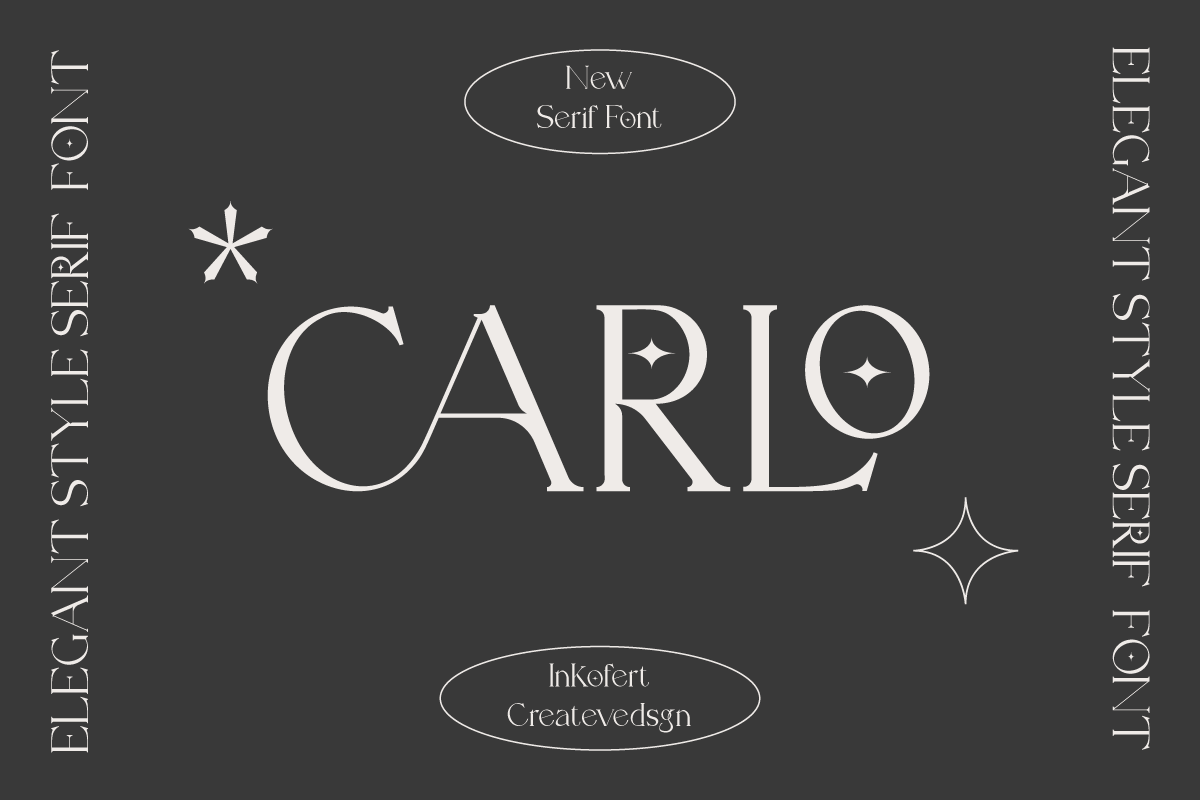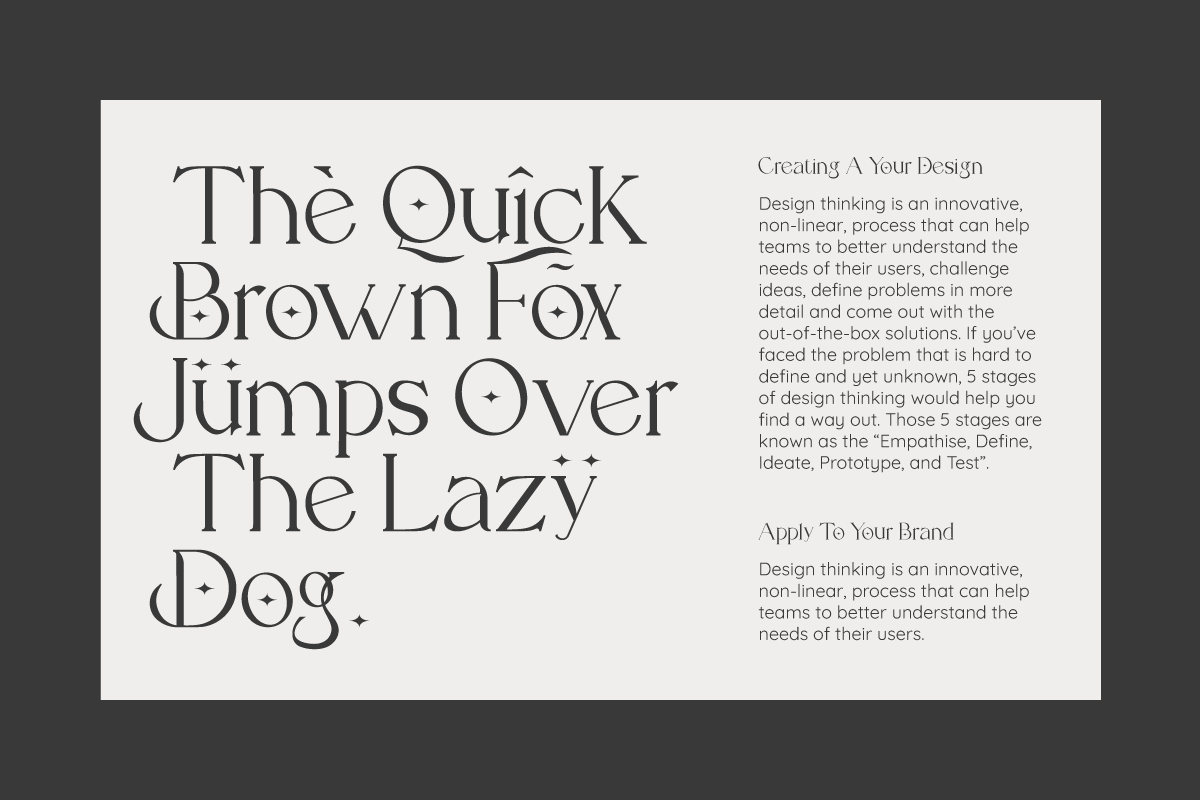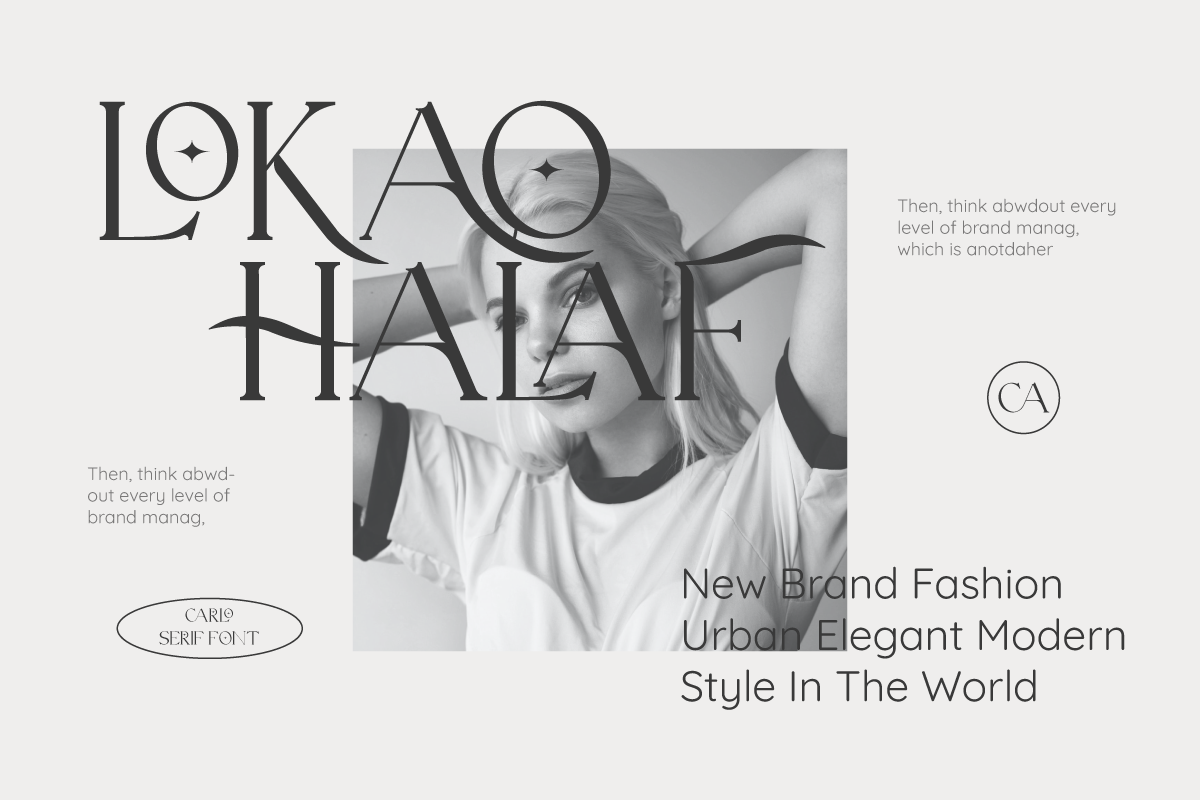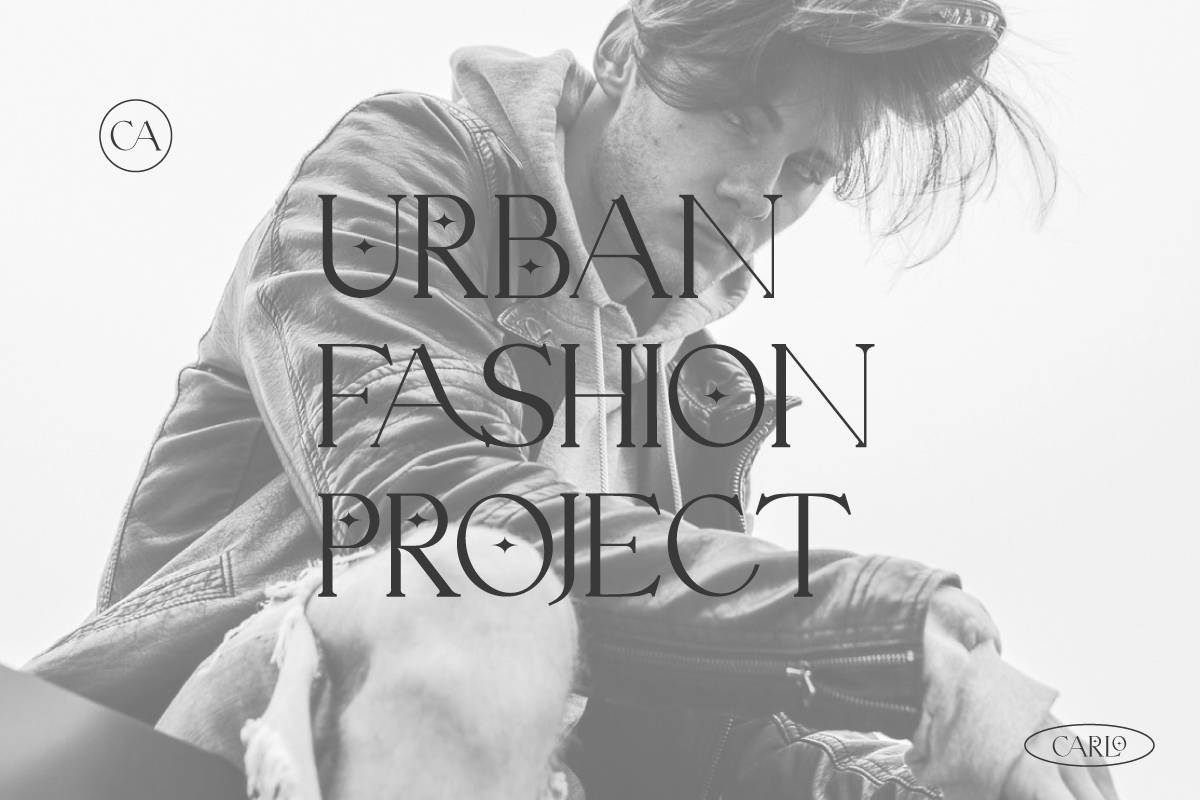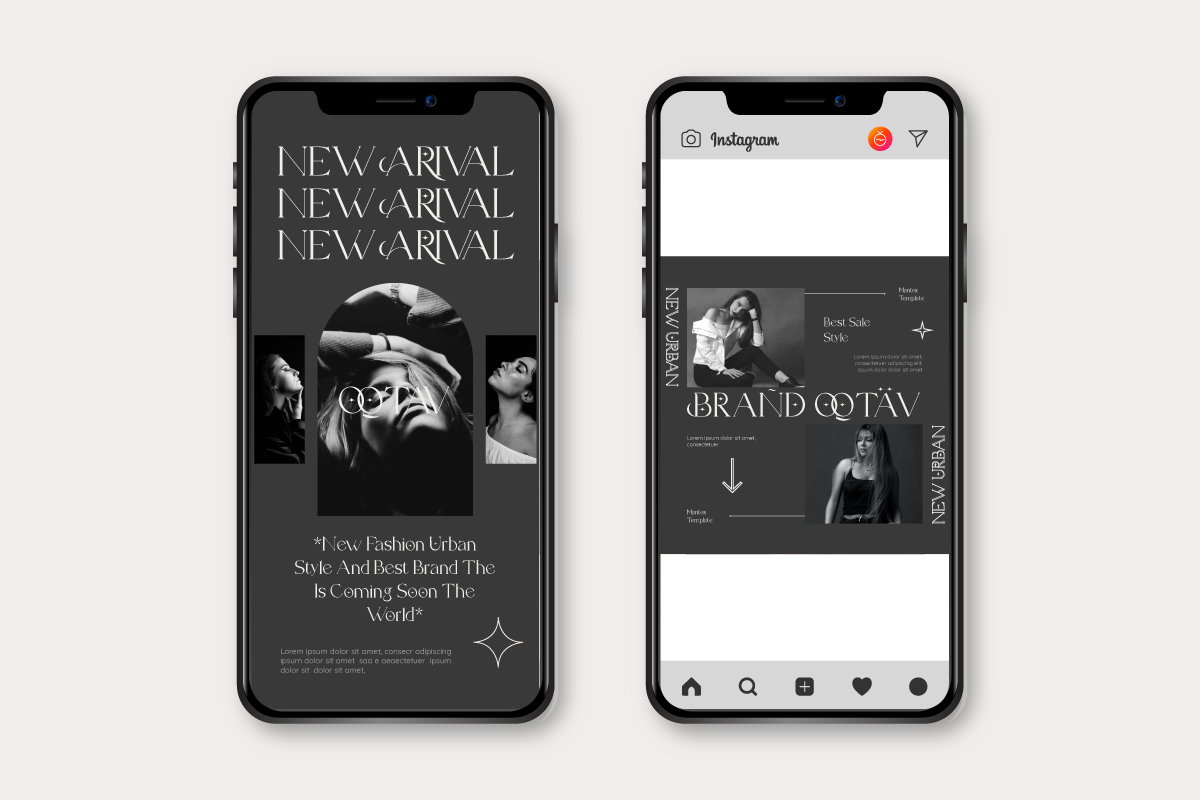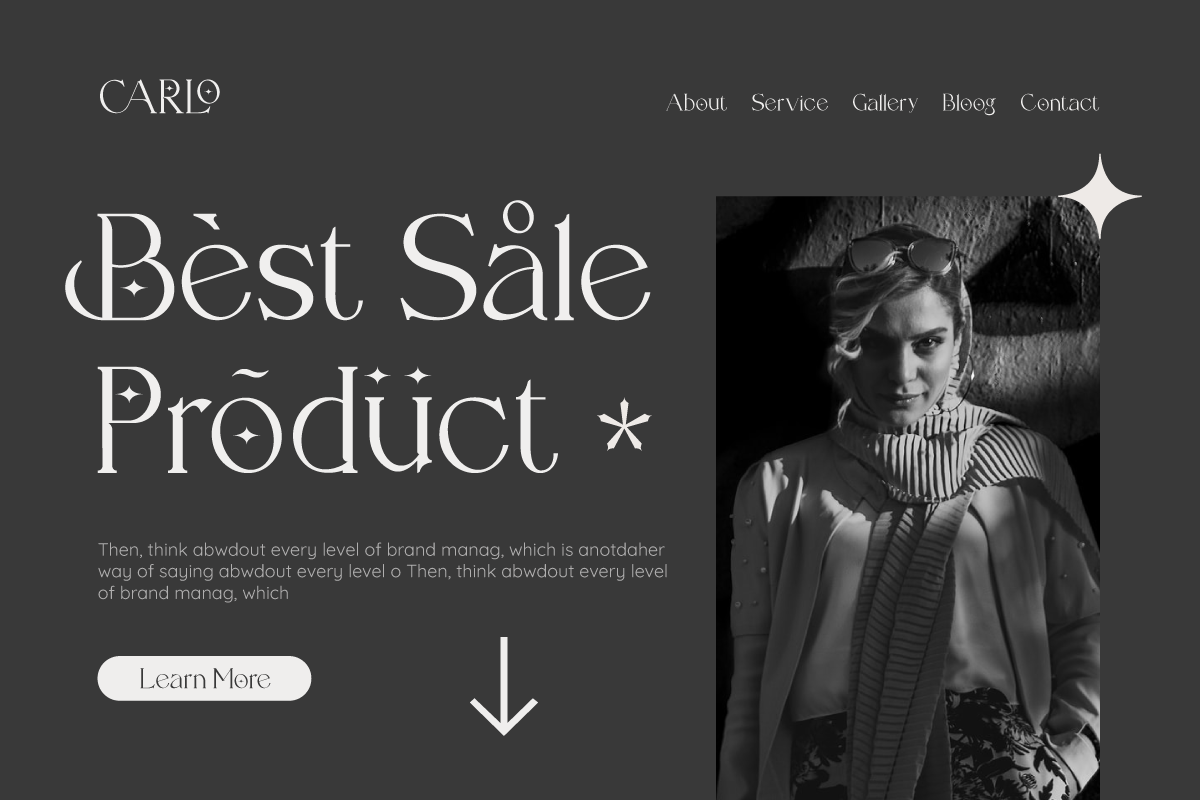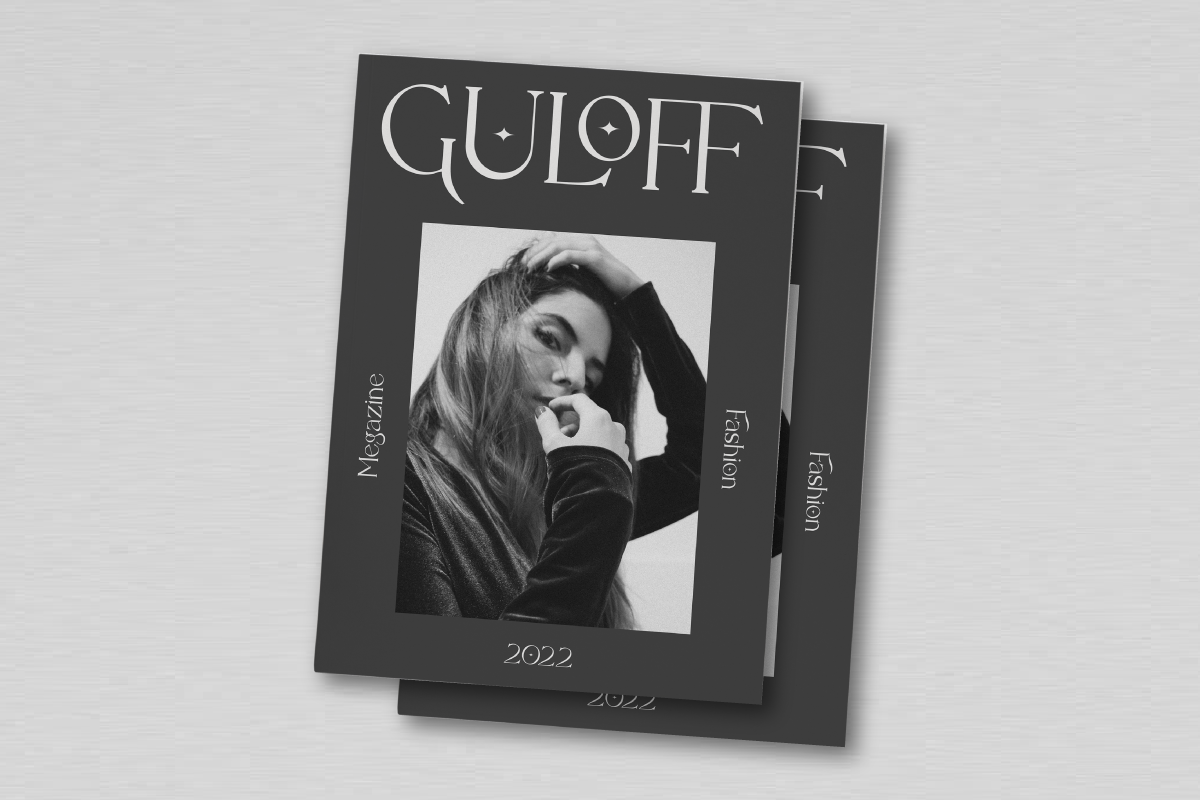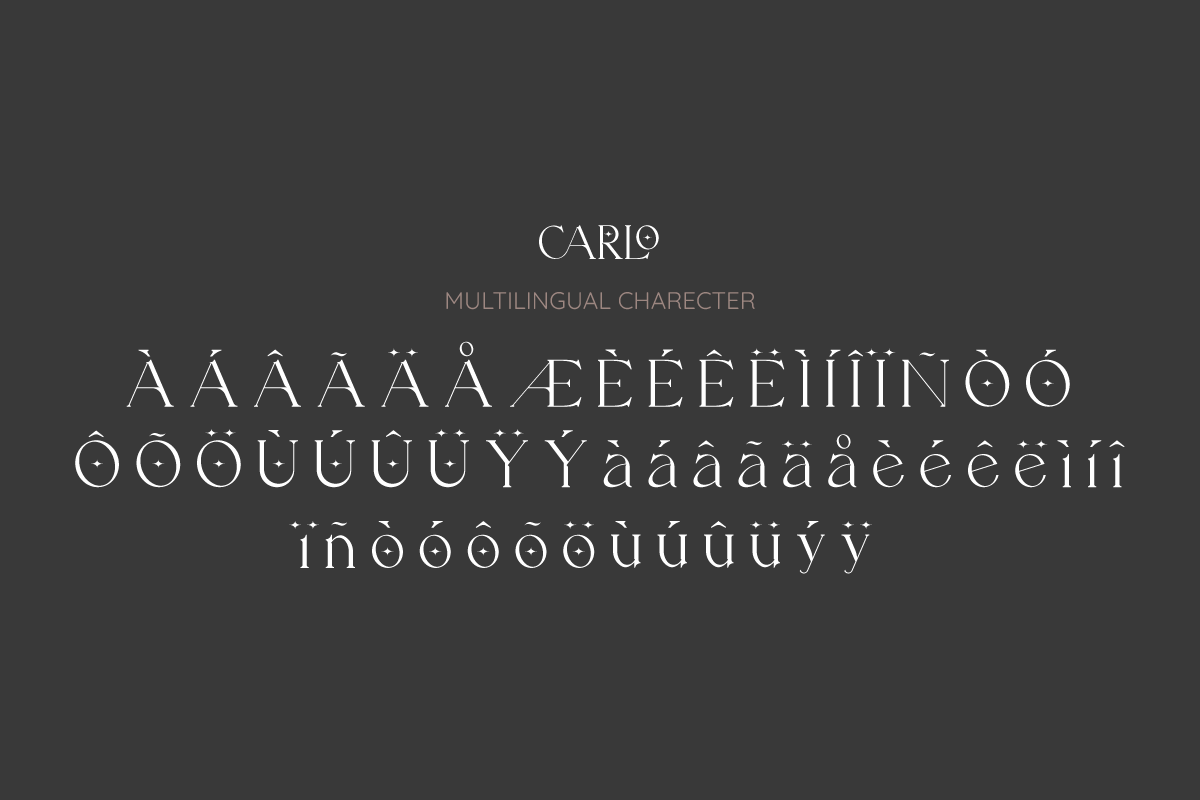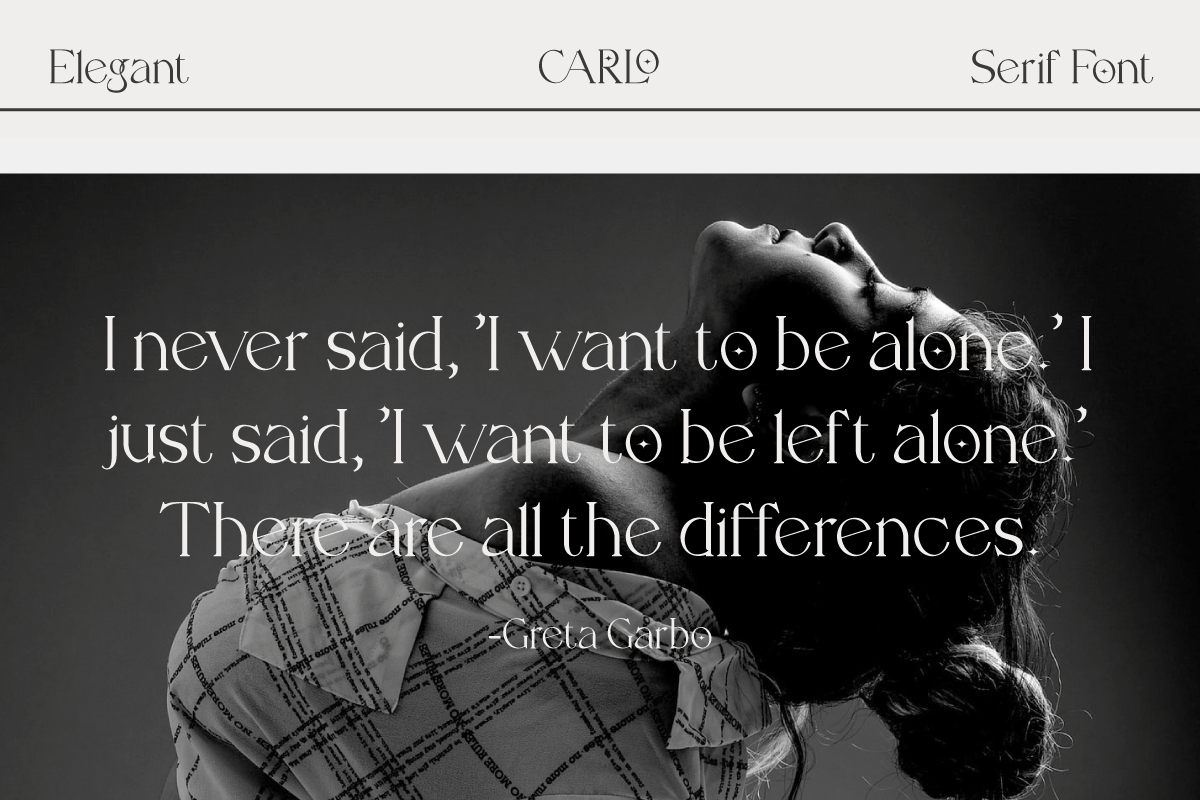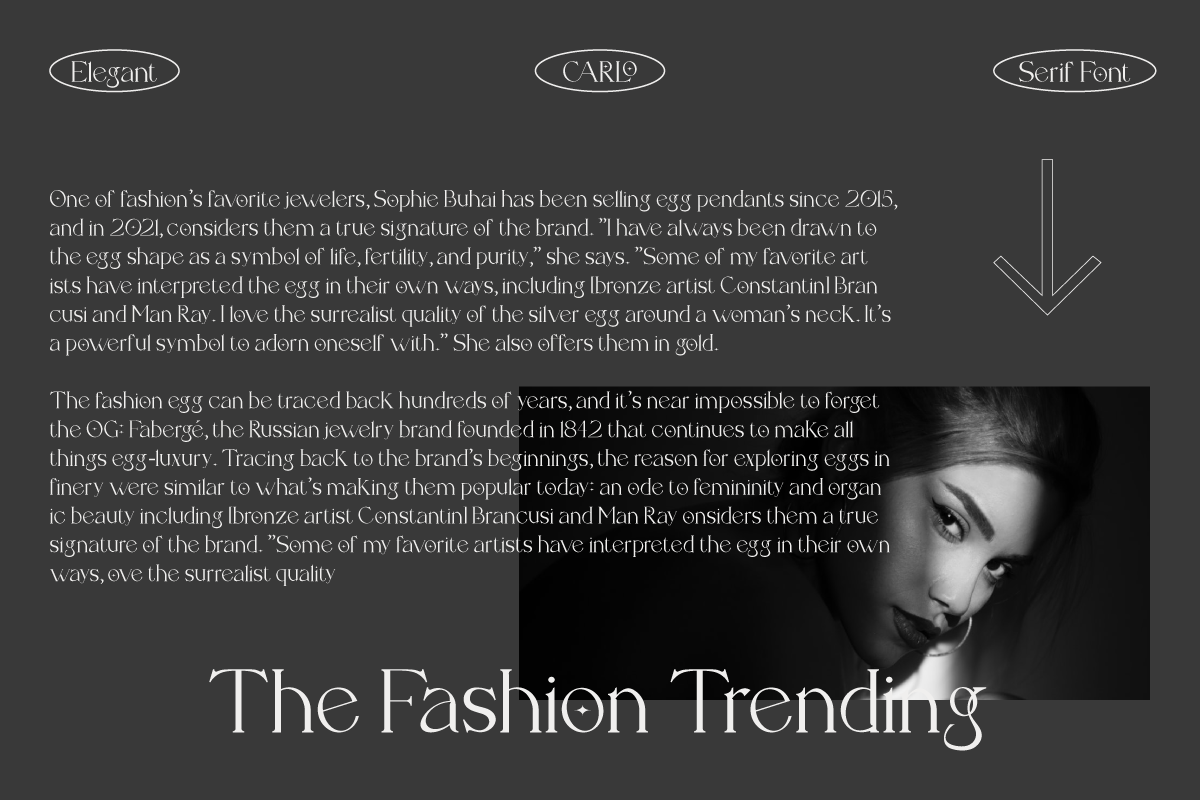
Carlo Elegant Serif Font
Carlo Elegant Serif Font a modern-style serif font with alternatives, ligatures, and multilingual that create stunning logos, quotes, posts, blog posts. branding projects, magazine imagery, wedding invitations, presentation, social media and much more.
- Alternatives
- Multilanguange